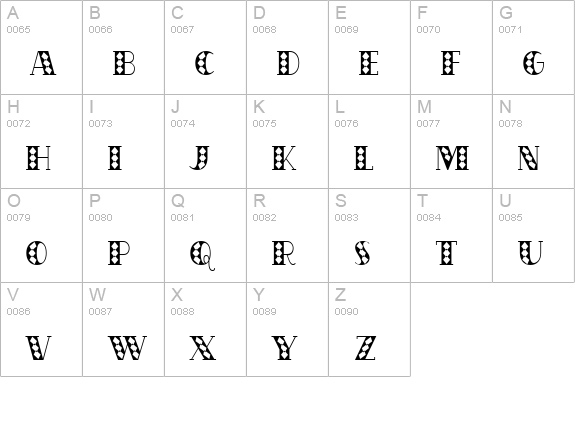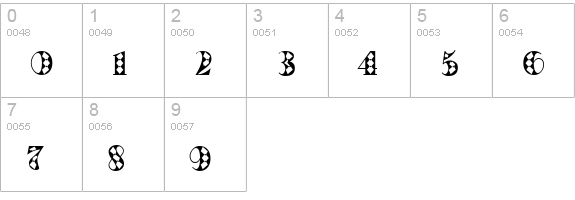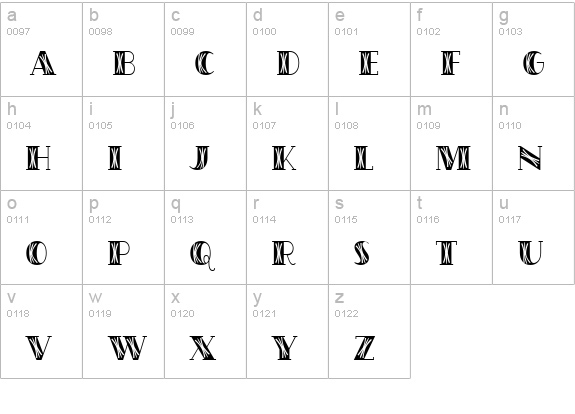
OakParkSquaRe Font Details
OakParkSquaRe font is a versatile and elegant typeface that exudes a sense of timeless sophistication. With its clean lines and classic style, this font is perfect for a wide range of design projects, from branding to editorial design. The tall and slender letterforms give OakParkSquaRe font a modern and polished look that is sure to make your text stand out. The best part? OakParkSquaRe font is available for free download at FontsMarket.com. Simply visit the website and start using this beautiful font in your projects today. Whether you're working on a website, a brochure, or any other design project, OakParkSquaRe font will add a touch of class and elegance to your work. Download it now and elevate your designs with this stunning typeface.